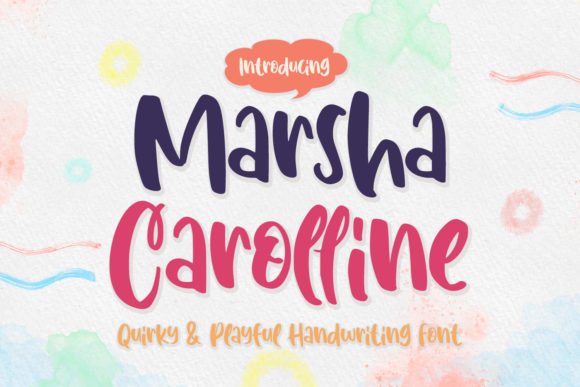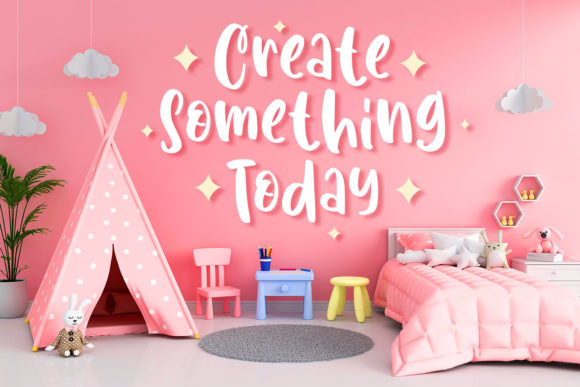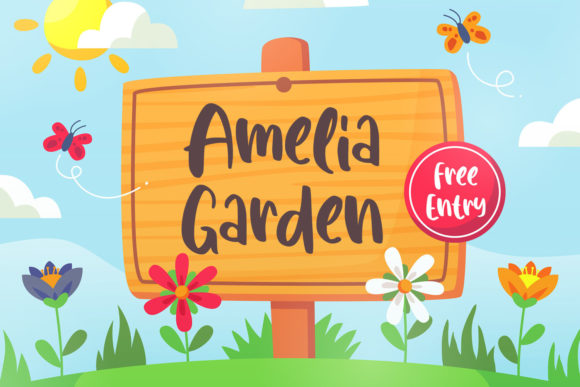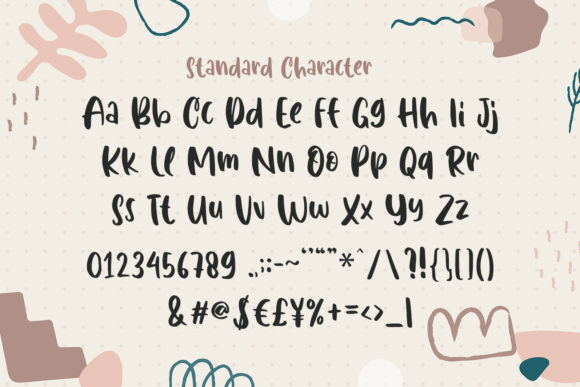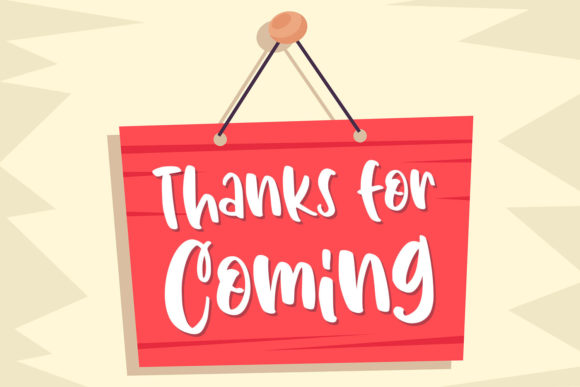
Marsha Carolline Font
About Marsha Carolline Font
Marsha Carolline is a playful and friendly handwritten font. It features a cute and joyful style that will take your designs to the next level! The only limit is your imagination.